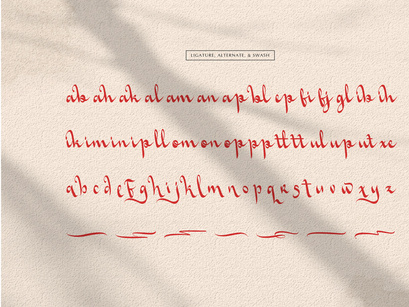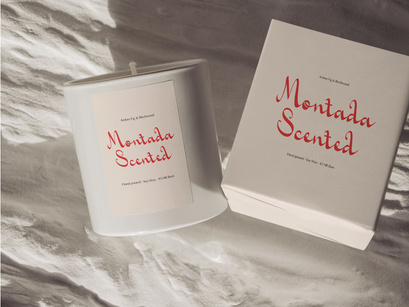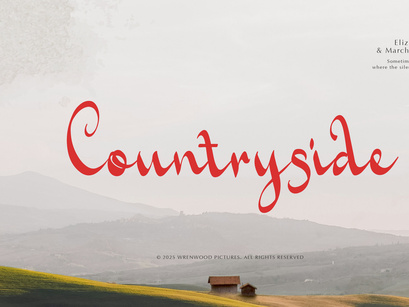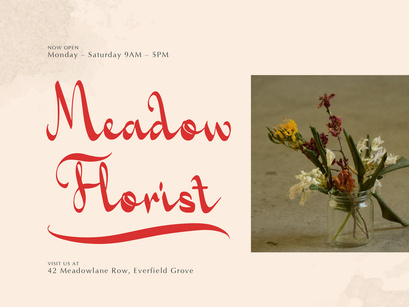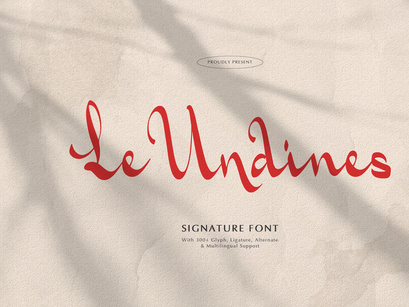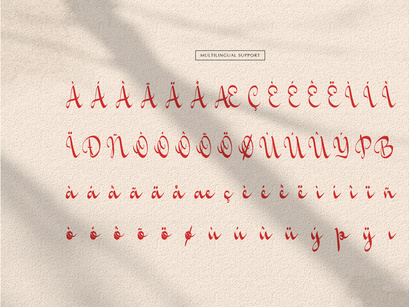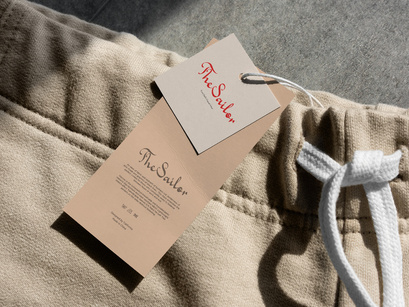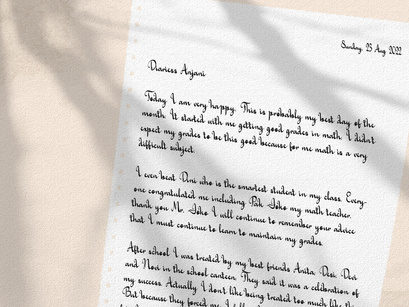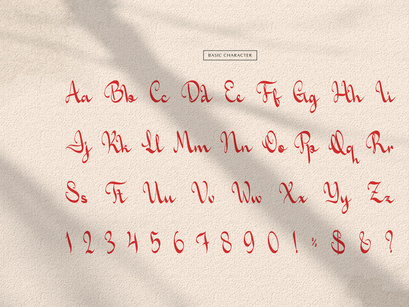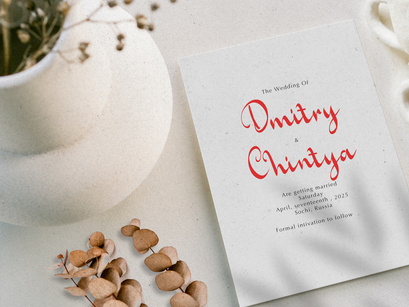
Le Undines | Signature Font, from Gracetypestudio, suitable for any projects such as: logos, branding projects, homeware designs, product packaging, mugs, quotes, posters, shopping bags, t-shirts, book covers, name card, invitation cards, greeting cards, label, photography, watermark, special events, and all your other lovely projects that need a Signature Font taste.